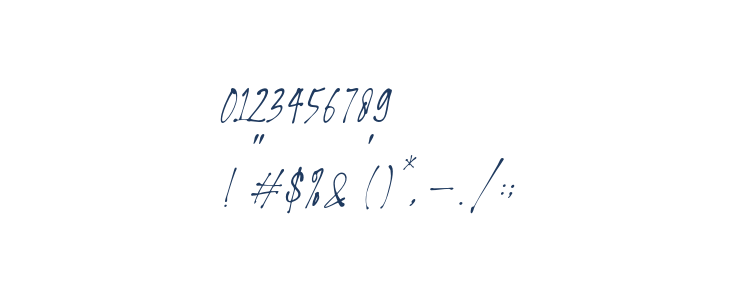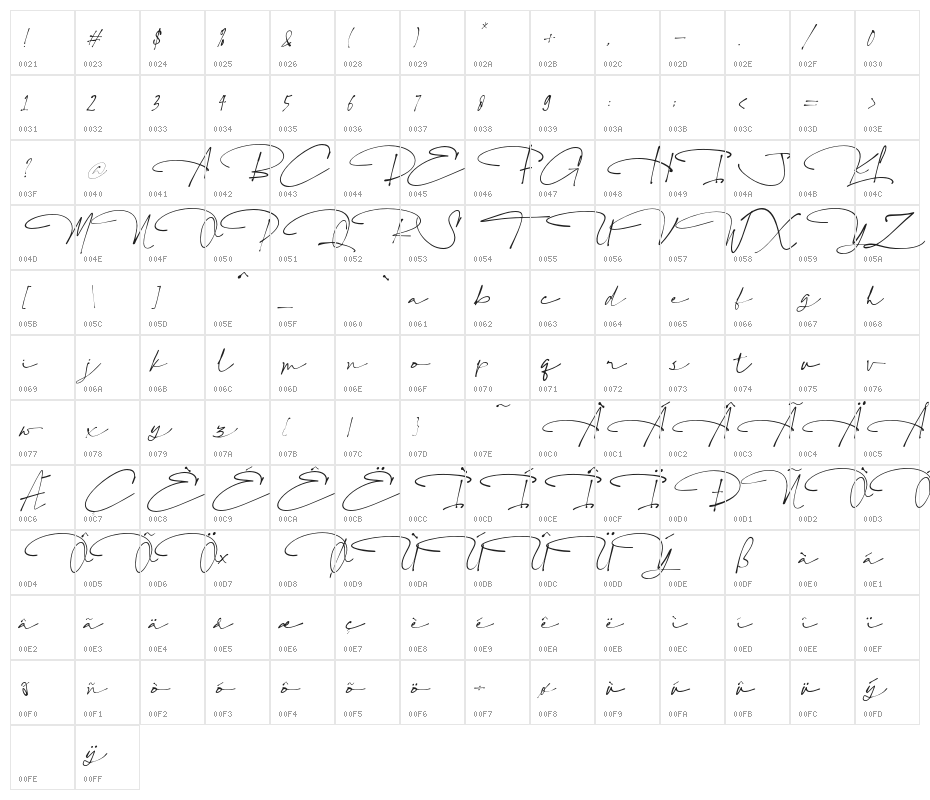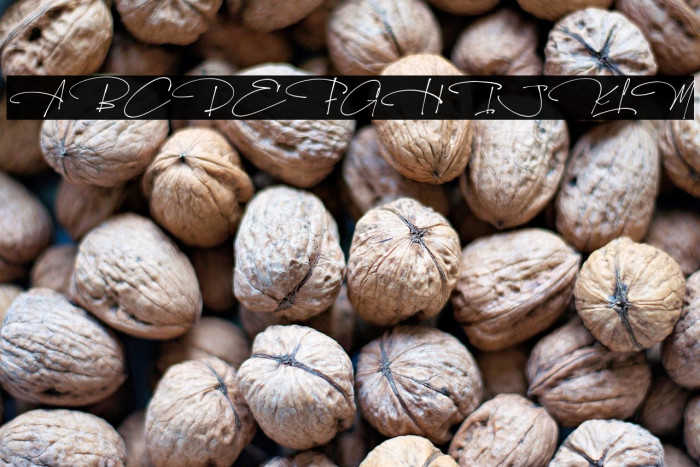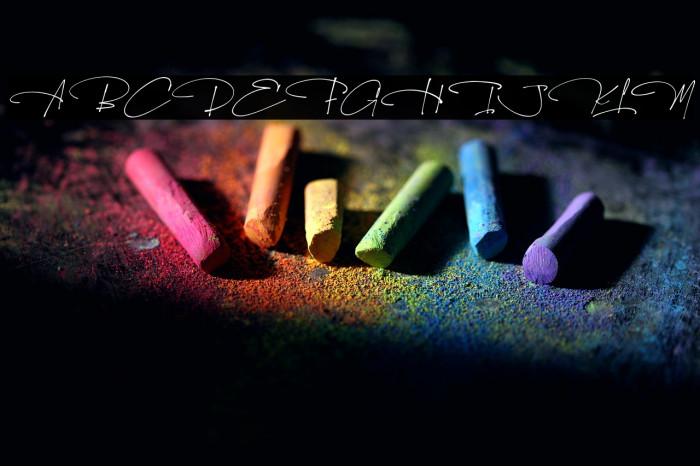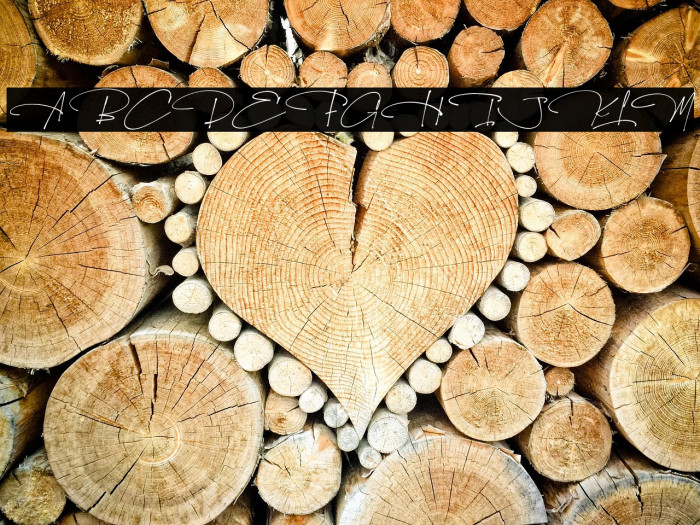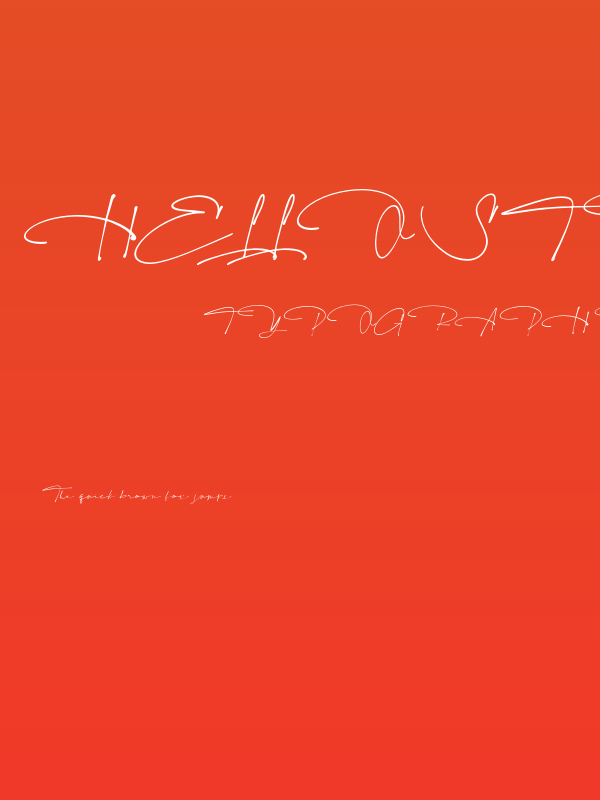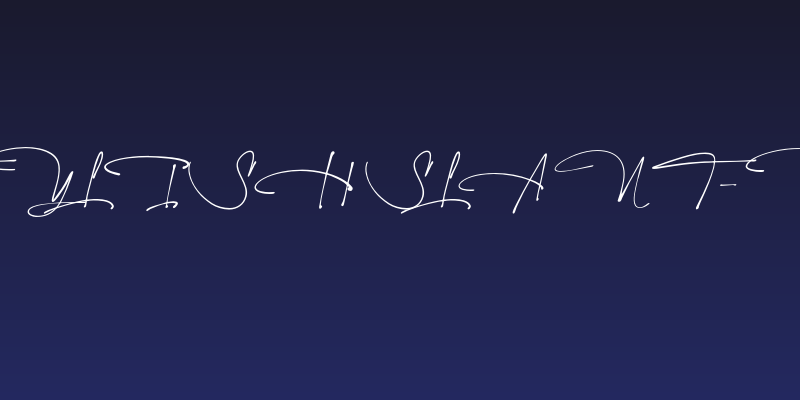
HelloStylishSlant-Regular Font
HelloStylishSlant-Regular Description
This font features a stylish, slanted script with a handwritten feel. The letters are elegantly connected, creating a fluid and continuous flow. The uppercase letters are slightly more ornate, with subtle flourishes that add a touch of sophistication. The lowercase letters maintain a consistent slant, enhancing the overall cohesive appearance. Numbers and special characters are designed to match the script's elegant style, ensuring uniformity across all text. The font's delicate strokes and smooth curves make it ideal for projects that require a personal and artistic touch.
Overall StyleElegant, Artistic
Use CaseLogos, Invitations, Personal Branding
Proposed ProjectsIdeal for wedding invitations, greeting cards, personal branding, and artistic projects.